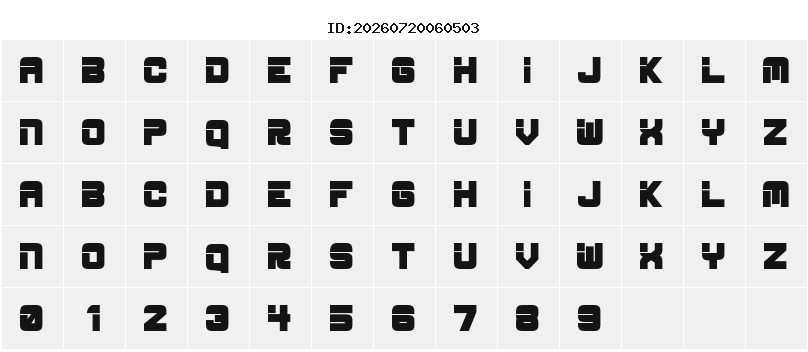
• Font Name: ESP_Bold
• Full Font Name: ESP_Bold
About ESP_Bold.ttf
ESP_Bold.ttf is a modern, elegant sans-serif font designed for ultimate readability and visual harmony. Perfect for branding, headlines, web design, and print materials.